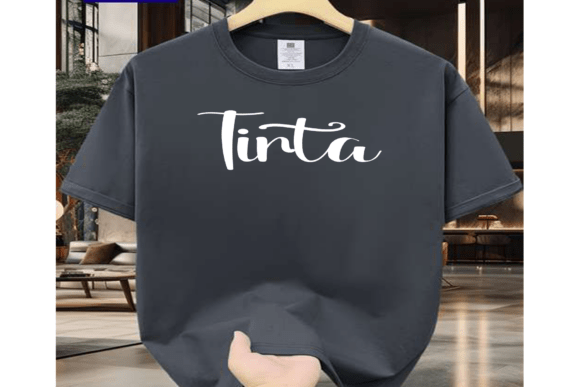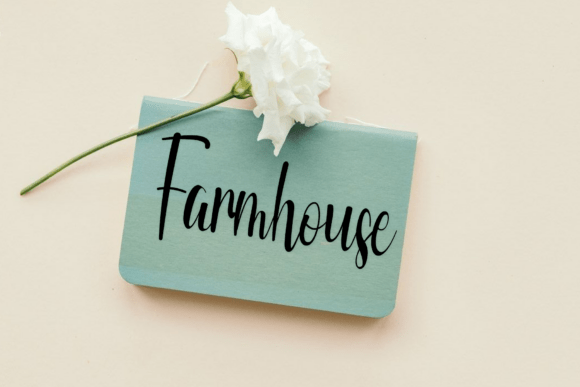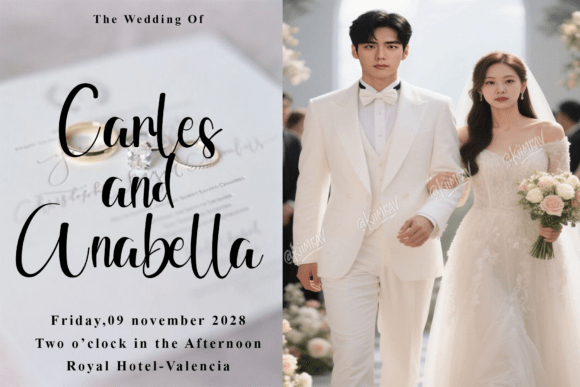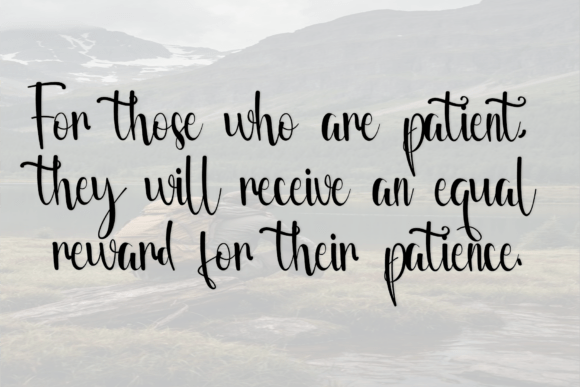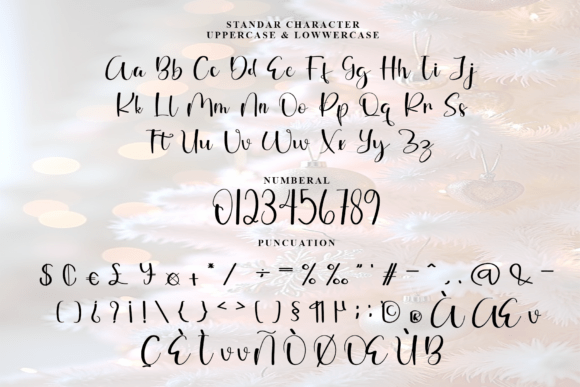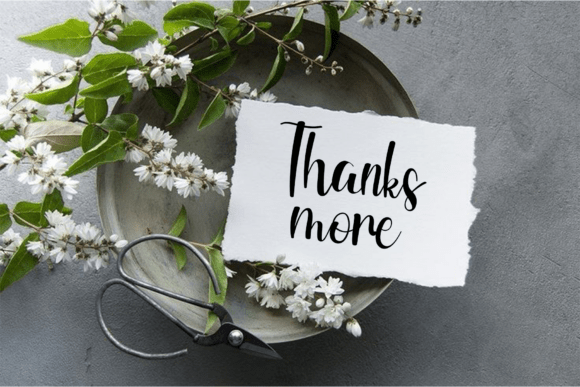
Introducing Christmas Building Font: The Perfect Blend of Warmth and Personality
Are you looking for a font that can add a personal touch to your designs? Look no further than Christmas Building Font, a casual handwritten font that radiates warmth and personality. With its smooth strokes, natural curves, and easy-flowing letterforms, this font captures the charm of authentic handwriting with a modern, approachable feel.
What Makes Christmas Building Font Special?
Christmas Building Font is designed to bring a sense of warmth and friendliness to your designs. Its smooth strokes and natural curves give it a relaxed, effortless feel that’s perfect for a wide range of applications. Whether you’re creating quotes, invitations, branding materials, or social media posts, this font adds a personal and friendly touch that will make your designs stand out.
Key Features of Christmas Building Font
- Smooth Strokes: The font features smooth, flowing strokes that give it a natural, handwritten feel.
- Natural Curves: The curves in Christmas Building Font are organic and relaxed, adding to its friendly and approachable vibe.
- Easy-Flowing Letterforms: The letterforms are designed to flow easily into each other, creating a sense of movement and fluidity.
- Versatile Character: The font has a versatile character that works well in a variety of contexts, from formal to informal.
- High Readability: Despite its casual nature, Christmas Building Font is highly readable, making it perfect for body text and captions.
Uses for Christmas Building Font
Christmas Building Font is incredibly versatile, and can be used in a wide range of applications. Here are some ideas to get you started:
- Quotes: Add a personal touch to your inspirational quotes and sayings with Christmas Building Font.
- Invitations: Use the font to create warm and inviting invitations for weddings, parties, and other special events.
- Branding: Add a friendly and approachable feel to your brand with Christmas Building Font.
- Social Media Posts: Use the font to create engaging and eye-catching social media posts that will stand out in crowded feeds.
- Crafting and DIY Projects: Christmas Building Font is perfect for crafters and DIY enthusiasts who want to add a personal touch to their projects.
Why Designers and Crafters Love Christmas Building Font
Designers and crafters love Christmas Building Font for its unique blend of warmth and personality. Here are some reasons why:
- Unique Style: The font has a unique style that’s both modern and approachable.
- Easy to Read: Christmas Building Font is highly readable, making it perfect for body text and captions.
- Versatile: The font can be used in a wide range of applications, from formal to informal.
- Personal Touch: The font adds a personal touch to designs, making them feel more friendly and approachable.
Christmas Building Font is a unique and versatile font that’s perfect for designers and crafters who want to add a personal touch to their designs. With its smooth strokes, natural curves, and easy-flowing letterforms, this font captures the charm of authentic handwriting with a modern, approachable feel. Whether you’re creating quotes, invitations, branding materials, or social media posts, Christmas Building Font is the perfect choice.